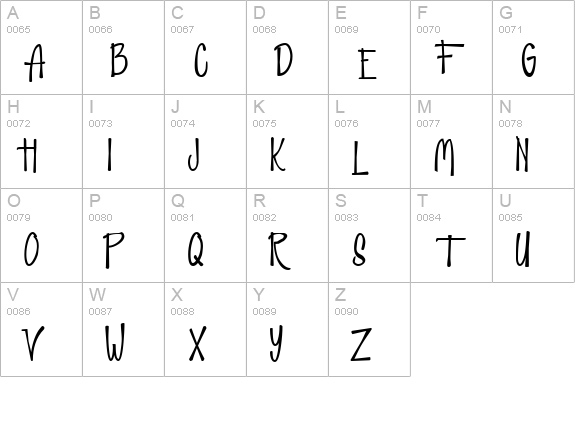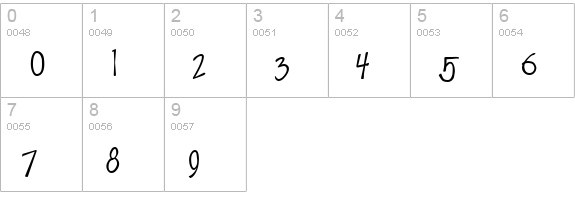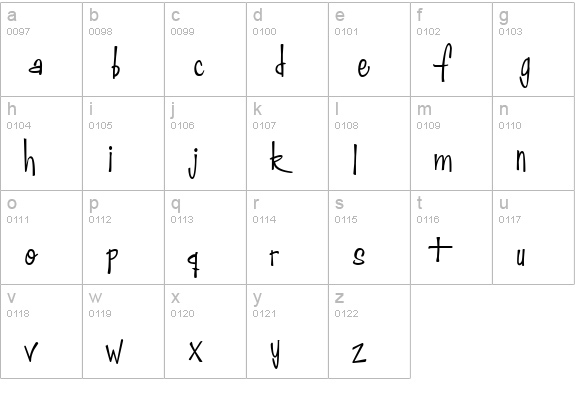
Fabulous 50s Normal Font Details
Fabulous 50s Normal is the standard, neutral variant in the Fabulous typeface family \xE2\x80\x94 well suited to general body text, paragraphs, and standard typographic work.
Introducing the Fabulous 50s Normal font, a delightful blend of nostalgia and modernity that pays homage to the iconic design styles of the 1950s. With its playful curves, bold lines, and retro-inspired details, this font captures the essence of the era with unparalleled charm. The Fabulous 50s Normal font is the perfect choice for any project seeking to evoke a sense of vintage elegance and timeless appeal. Whether you're designing a poster, creating a logo, or crafting a nostalgic invitation, this font will transport your audience back to the golden age of design. What makes the Fabulous 50s Normal font even more remarkable is that it is freely available to download at FontsMarket.com. Yes, you read that right! This font can be yours at no cost, allowing you to bring a touch of 50s flair to your designs without breaking the bank. Downloading and installing the Fabulous 50s Normal font is a breeze. Simply visit FontsMarket.com, locate the font, click the download button, and voila! You'll have instant access to this stunning typeface, ready to enhance your creative projects with its whimsical charm. Don't miss out on the opportunity to add a dash of retro sophistication to your designs. Download the Fabulous 50s Normal font today at FontsMarket.com and embark on a journey through time, where classic design meets modern convenience.